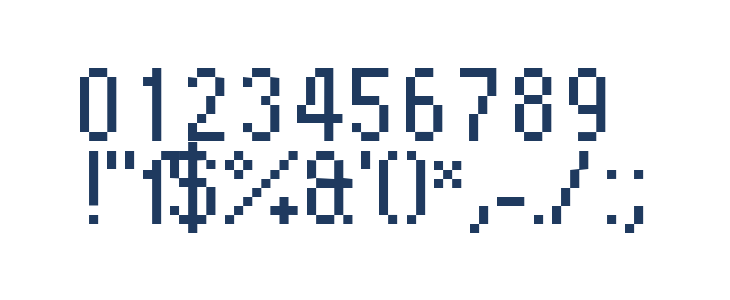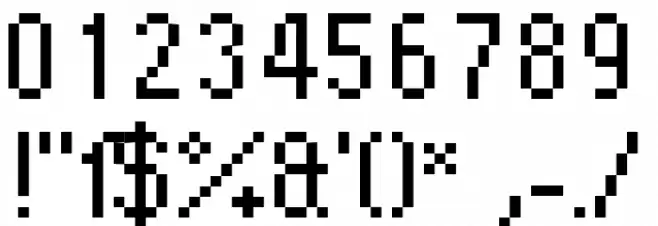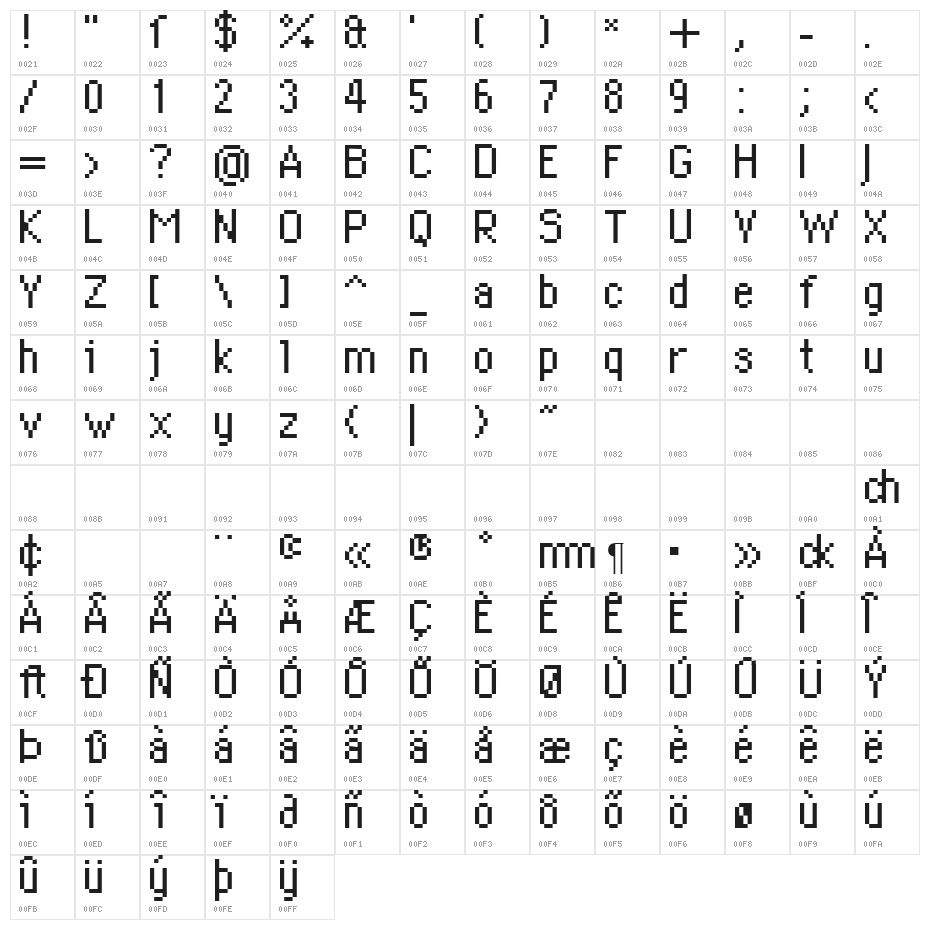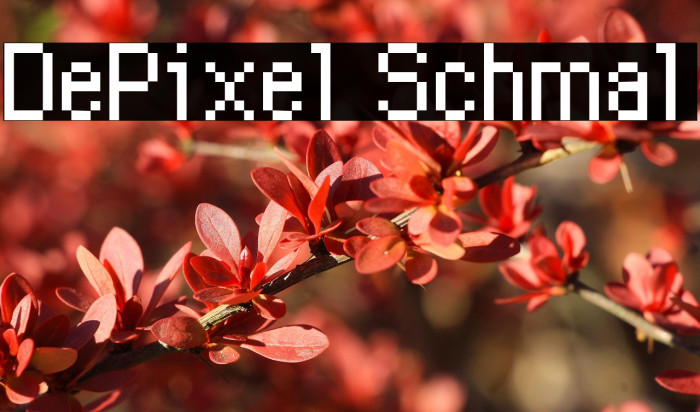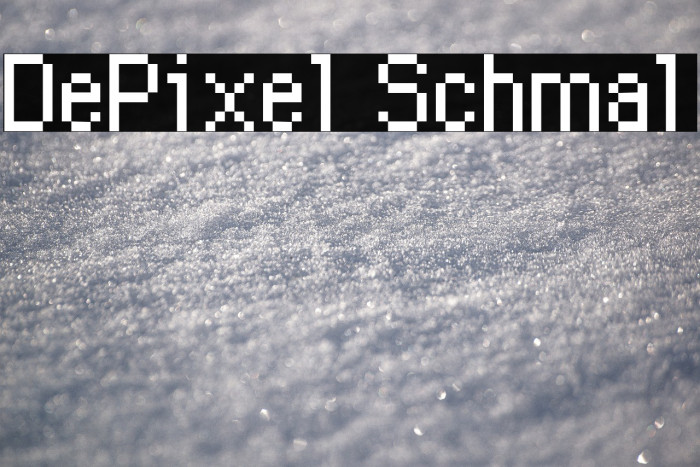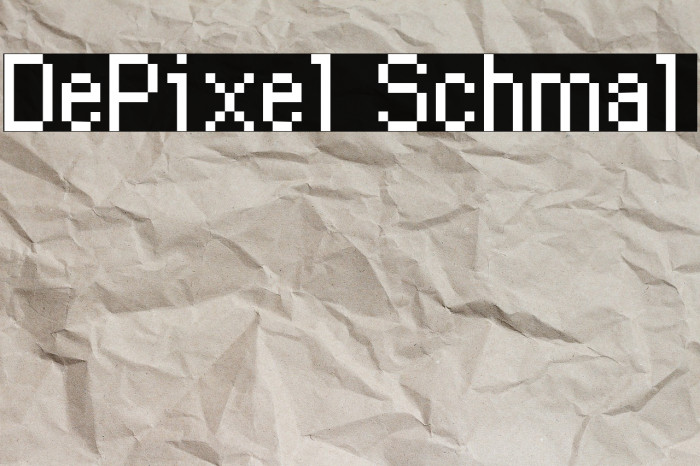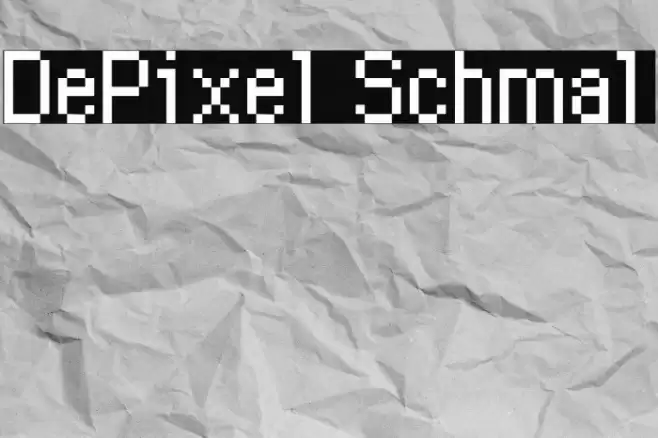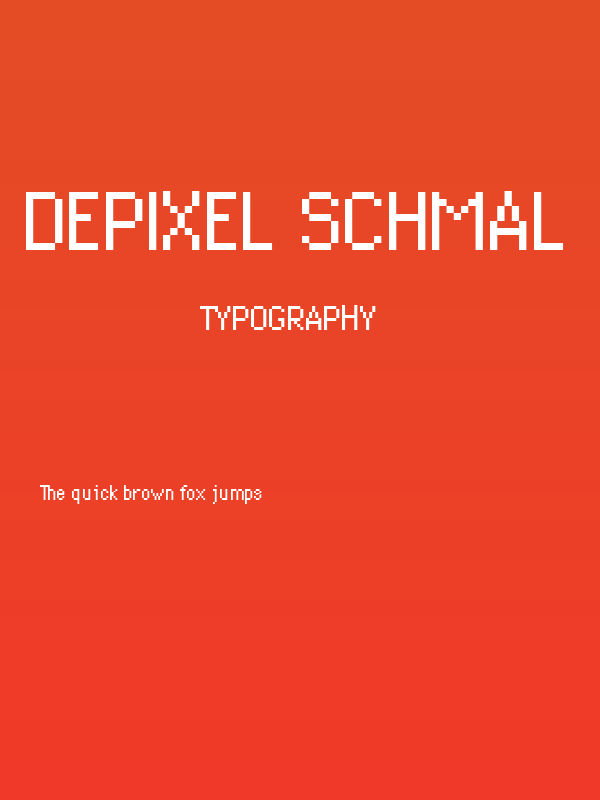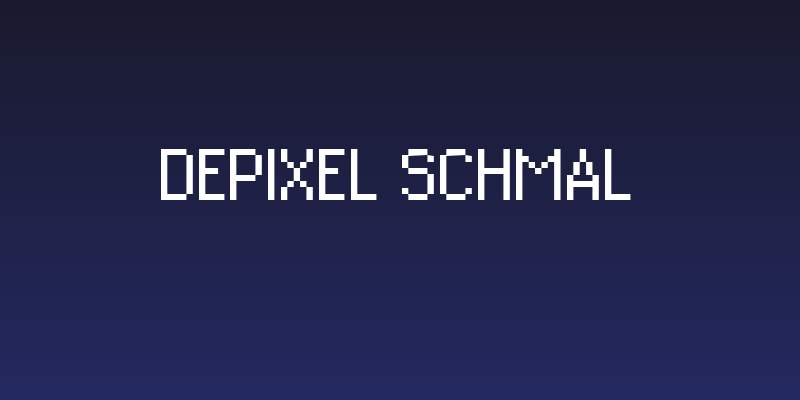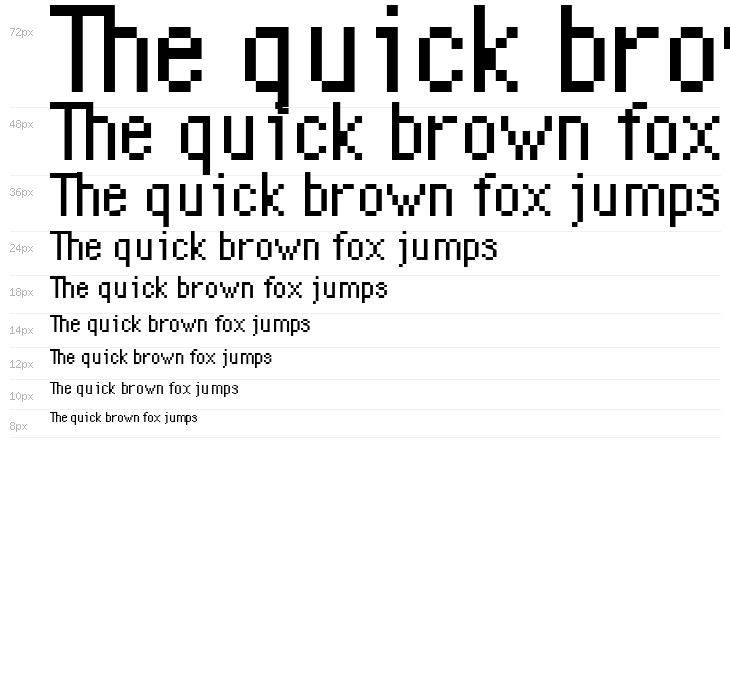
DePixel Schmal Font
DePixel Schmal Description
This font features a pixelated, monospaced design reminiscent of early digital displays and retro video games. Each character is constructed with a grid-like precision, giving it a blocky and geometric appearance. The uppercase and lowercase letters, as well as numbers and special characters, maintain a consistent height and width, emphasizing its uniformity. The style is straightforward and functional, with no curves or embellishments, making it ideal for digital or tech-themed projects. Its simplicity and clarity ensure readability even at smaller sizes, while the pixelated aesthetic adds a nostalgic touch.
| Use Case | Headlines, Digital displays, Coding interfaces |
| Proposed Projects | Ideal for retro video games, digital art, tech-themed designs, and coding interfaces. |